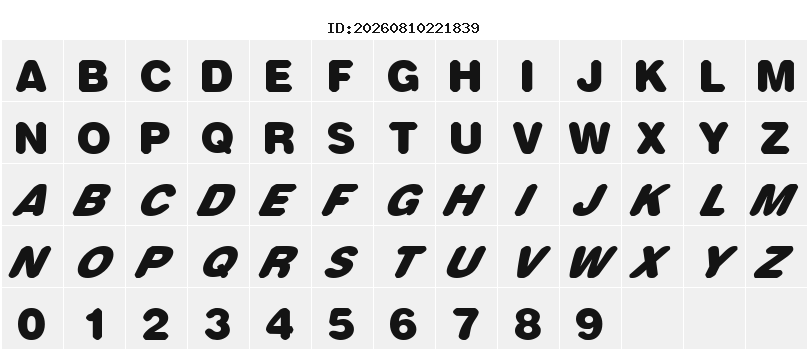
• Font Name: rounder
• Font Style: multistyled
• Font ID: Macromedia Fontographer 4.1 rounder multistyled
• Full Font Name: rounder multistyled
• Version: Macromedia Fontographer 4.1 11/9/1999
• PostScript Name: Roundermultistyled
• Copyright: popdog '99
About rounder.ttf
rounder.ttf is a modern, elegant sans-serif font designed for ultimate readability and visual harmony. Perfect for branding, headlines, web design, and print materials.